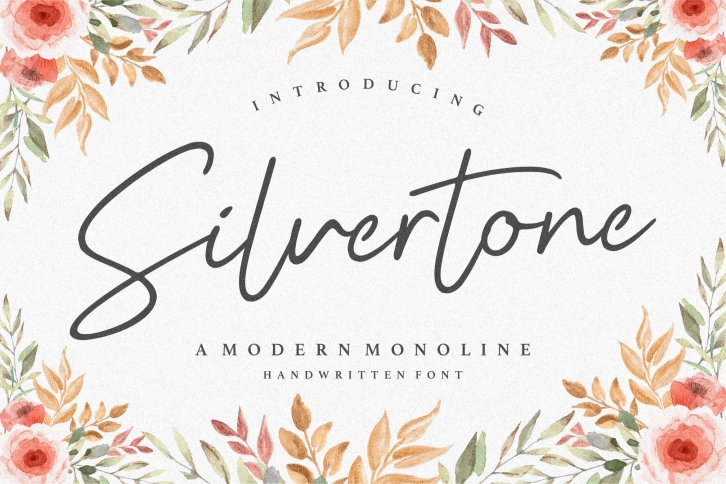
Proudly Present, Silvertone Font
Silvertone is a sweet and delicate handwritten font. Clean and fashionable, this font looks amazing on a variety of designs, both formal and informal.